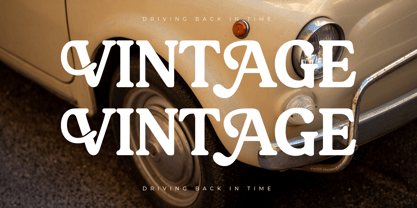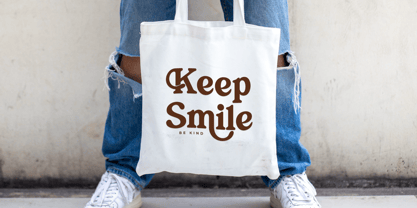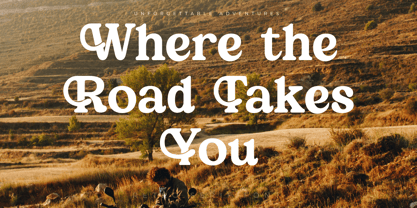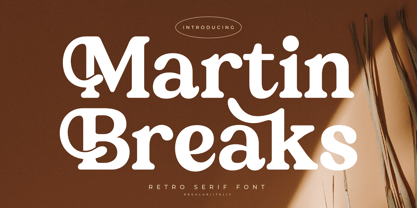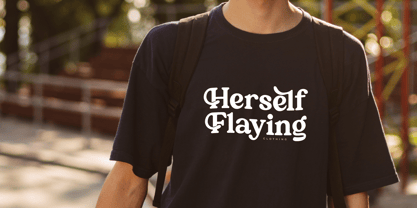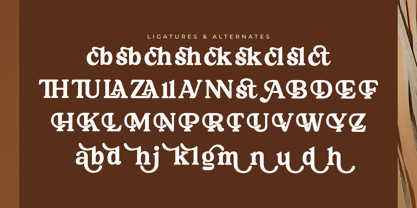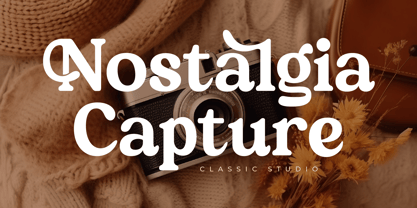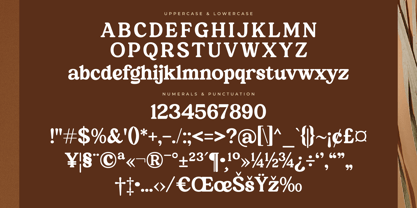
Martin Breaks
by Letterena Studios
The Martin Breaks Font Family was designed by Heru Utama Putra and published by Letterena Studios. Martin Breaks contains 2 styles and family package options. More about this family
Martin Breaks – Retro Serif Font , from Letterena, is a Luxury Serif font, suitable for any projects such as: logos, branding projects, homeware designs, product packaging, mugs, quotes, posters, shopping bags, t-shirts, book covers, name card, invitation cards, greeting cards, label, photography, watermark, special events, and all your other luxury and beautiful projects that need a Luxury Serif taste.